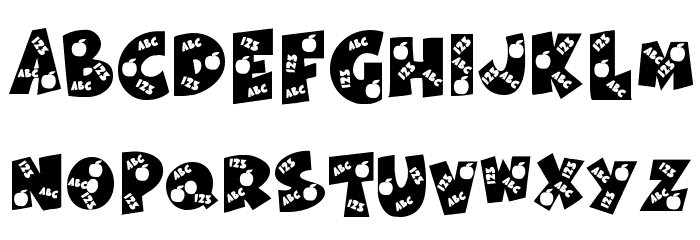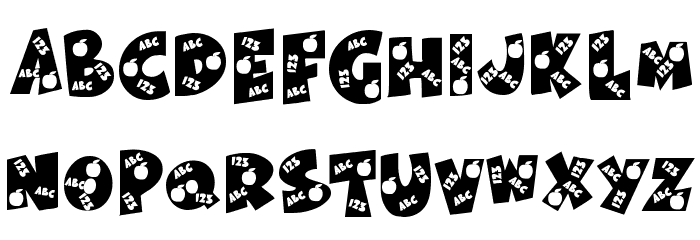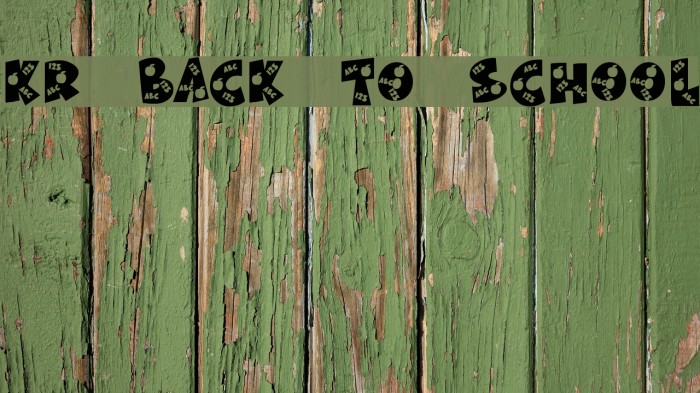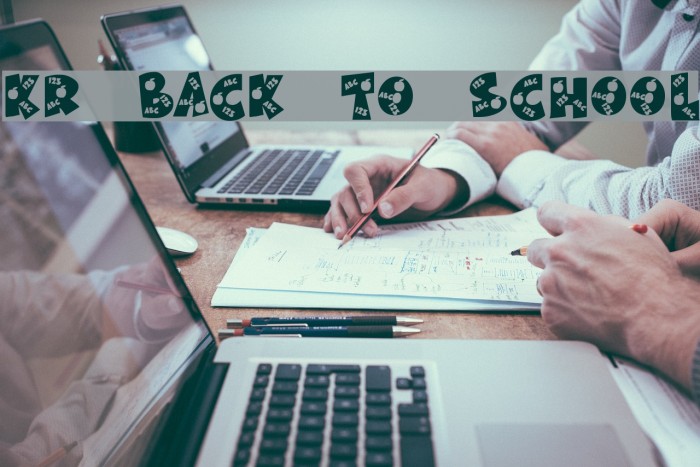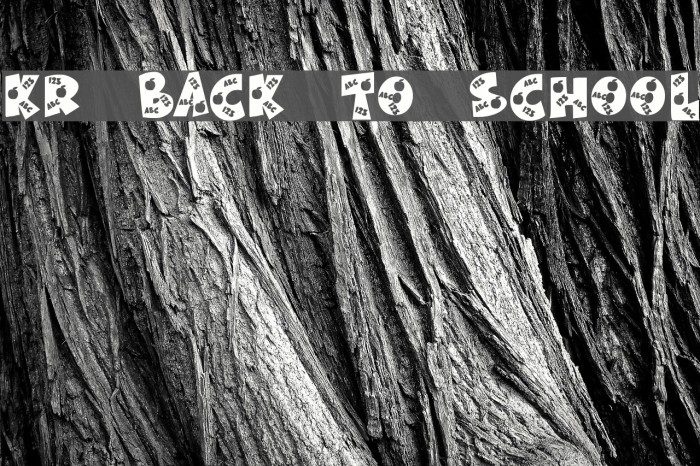
KR Back To School Font
This playful and whimsical font features bold, blocky letters filled with school-themed elements like apples and ABCs, creating a fun and educational vibe. The letters are slightly irregular in shape, giving them a hand-cut appearance that adds to the playful nature. The design incorporates a mix of uppercase and lowercase letters, with each character uniquely decorated. The font's boldness and decorative elements make it stand out, ideal for capturing attention in educational or child-focused projects.
A playful, school-themed decorative font with bold, blocky letters.
- Proposed Projects: Ideal for educational materials, children's book covers, school event posters, and playful branding.
- Overall Style: Playful, Educational